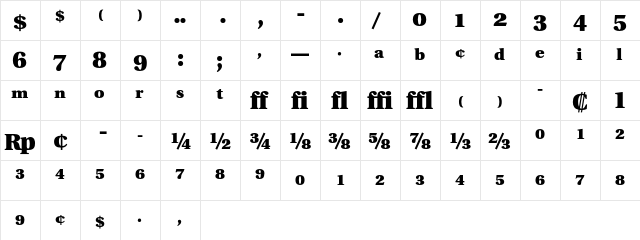
Utopia Expert Black Font Preview
Utopia Expert Black
Design Context for Utopia Typeface
Utopia is a composed and adaptable typeface that performs quietly and consistently across a wide range of design contexts.
Pro Tip: Use Utopia in both headline and body roles to test its range before committing to a single application.